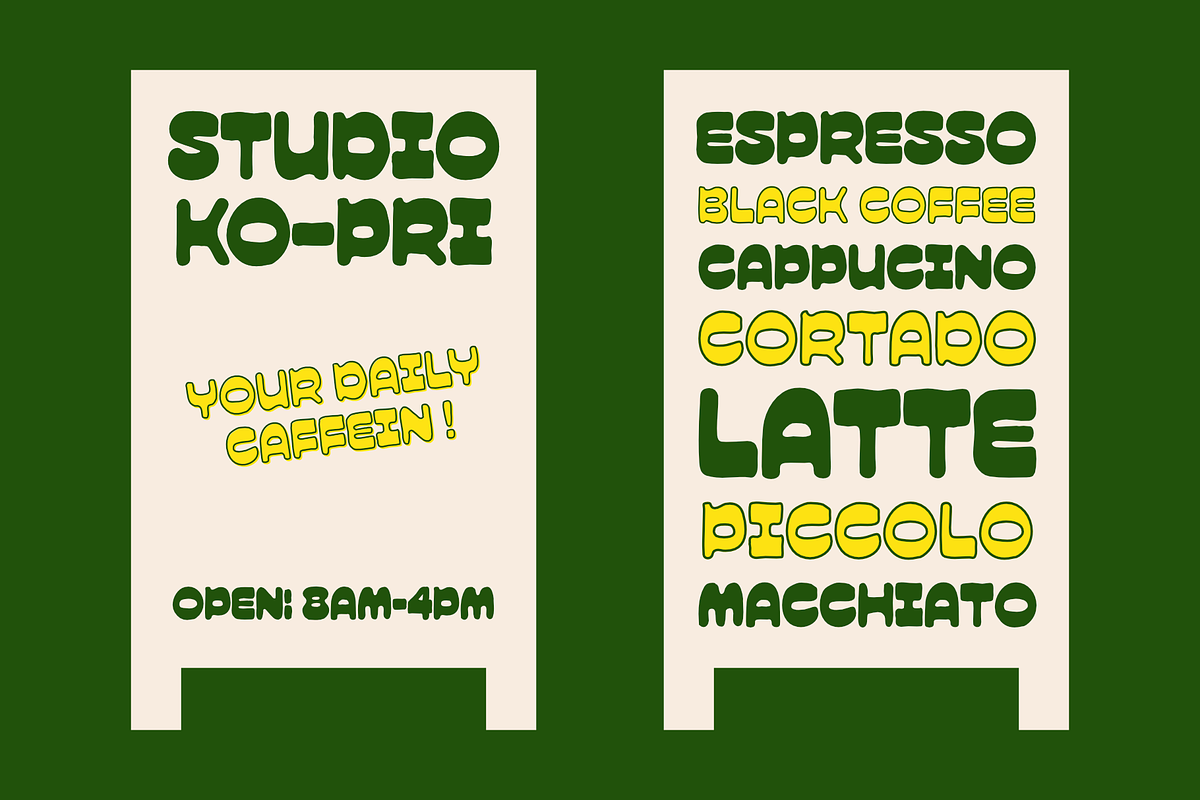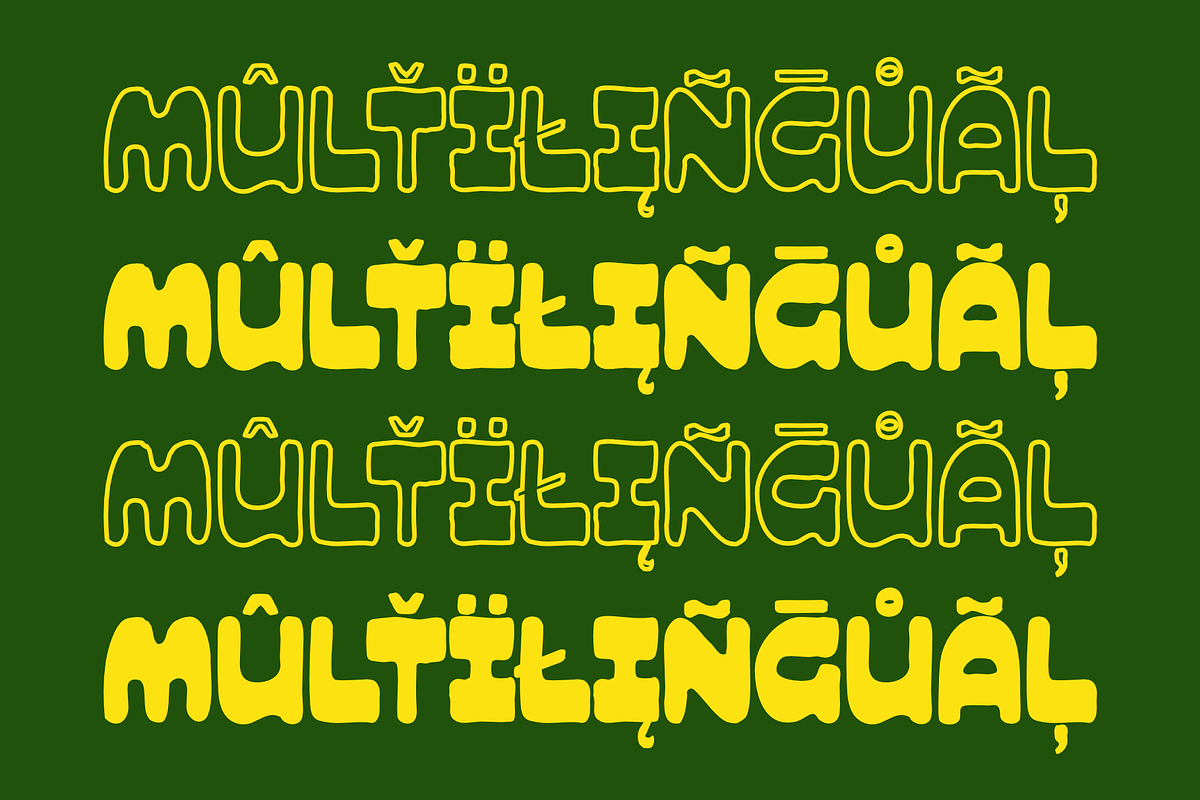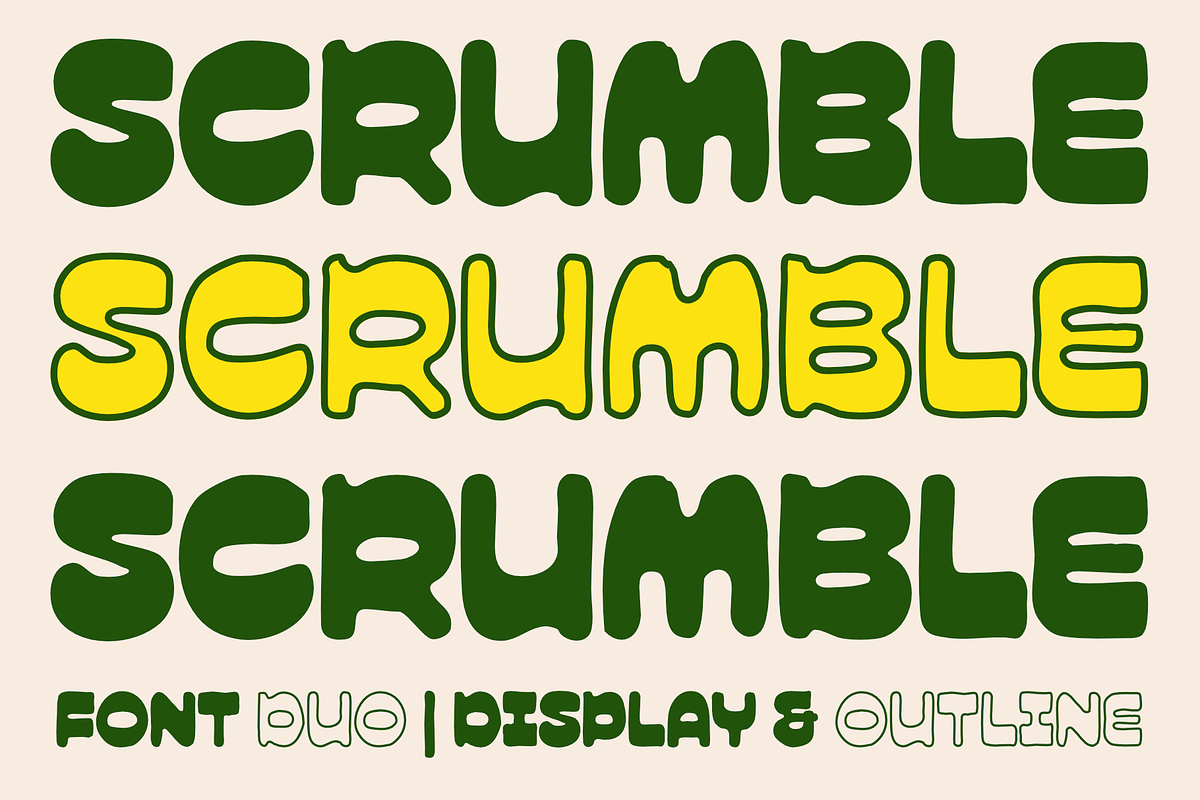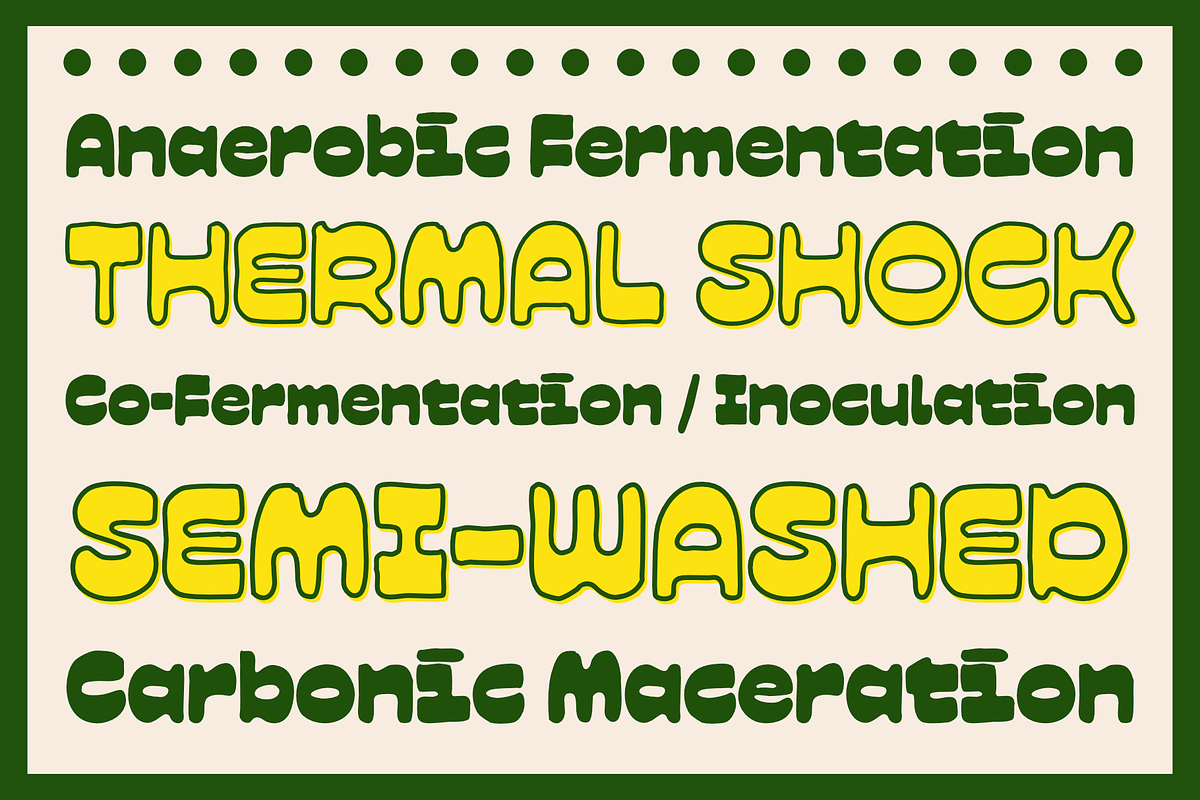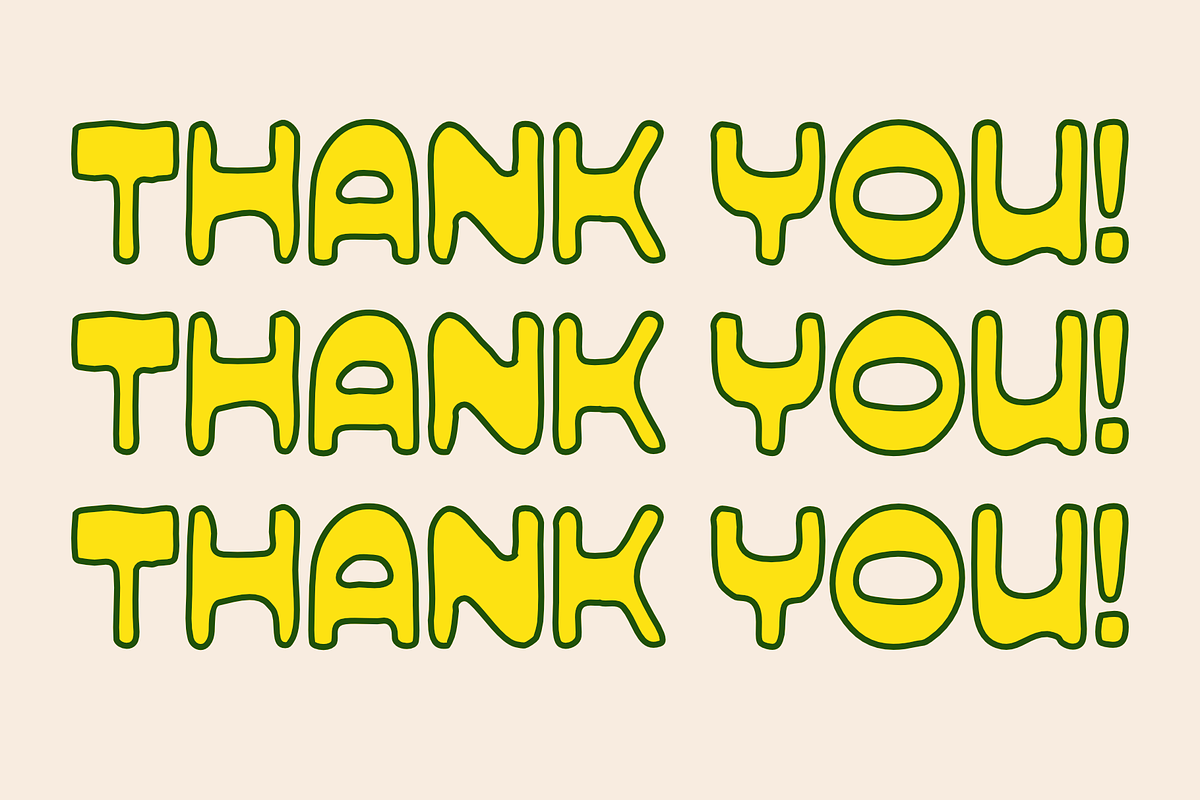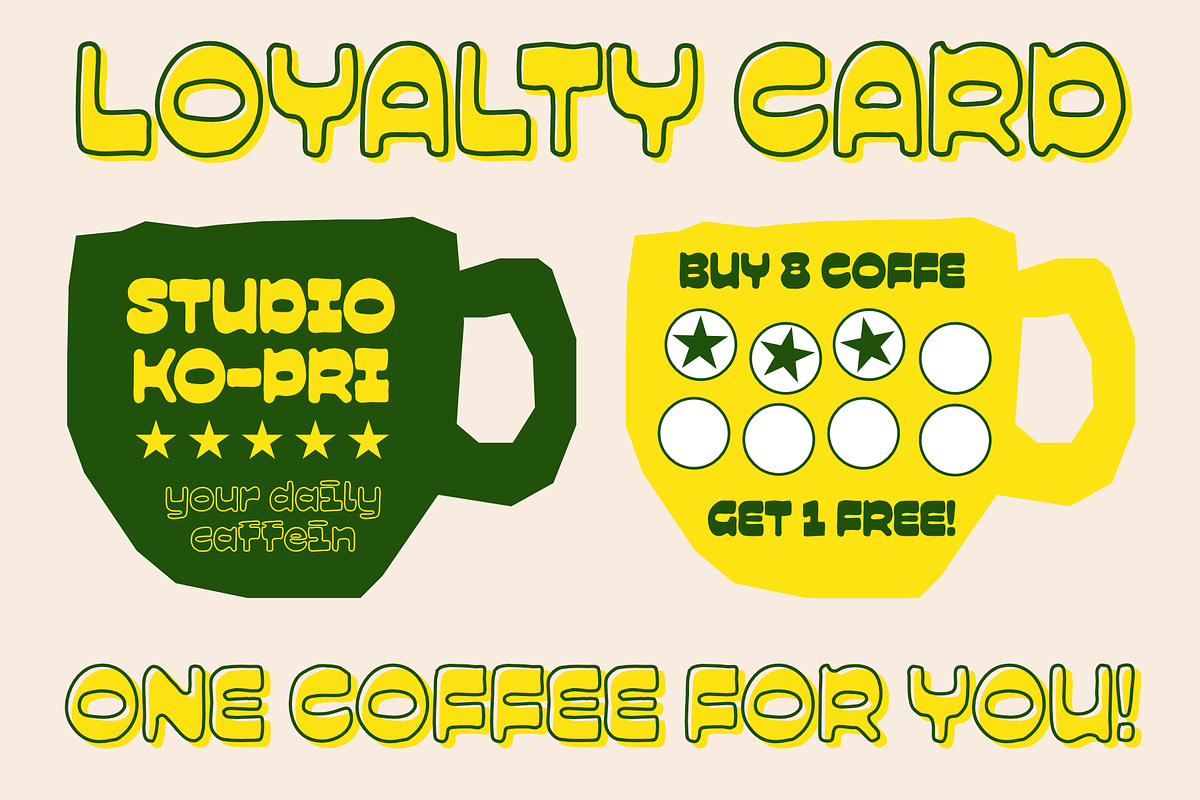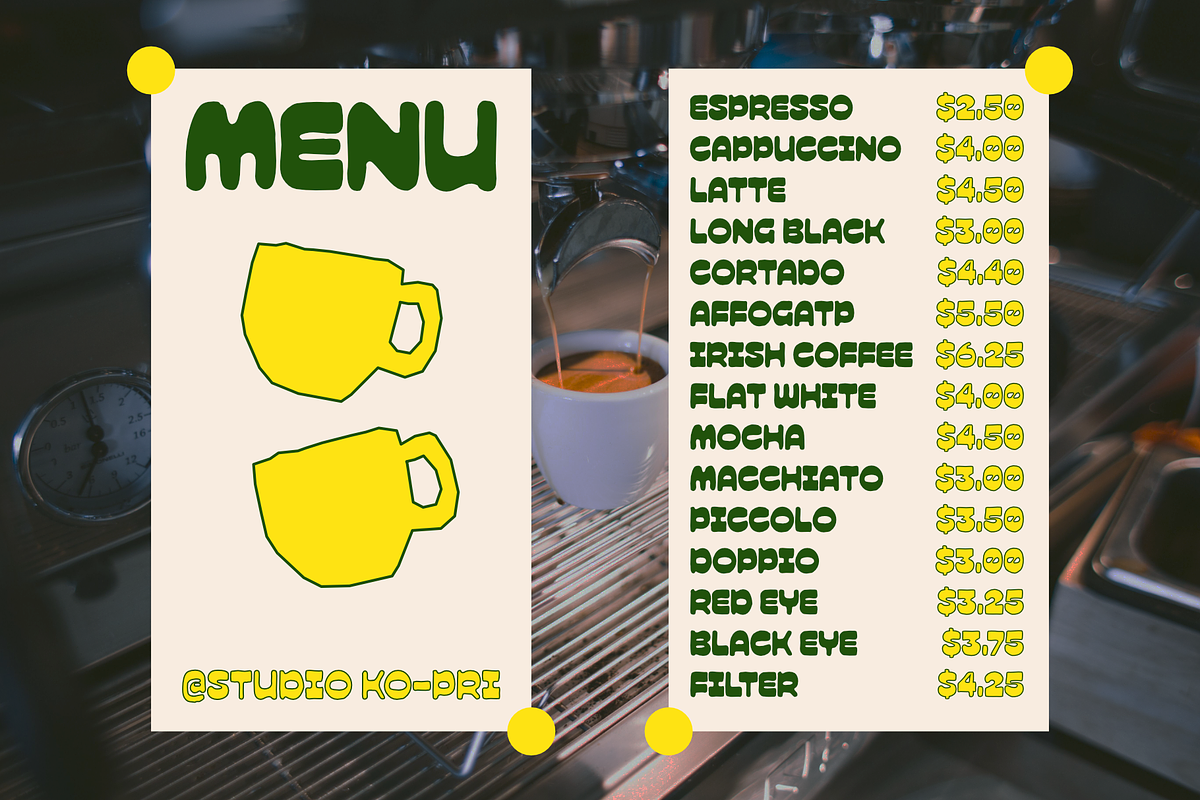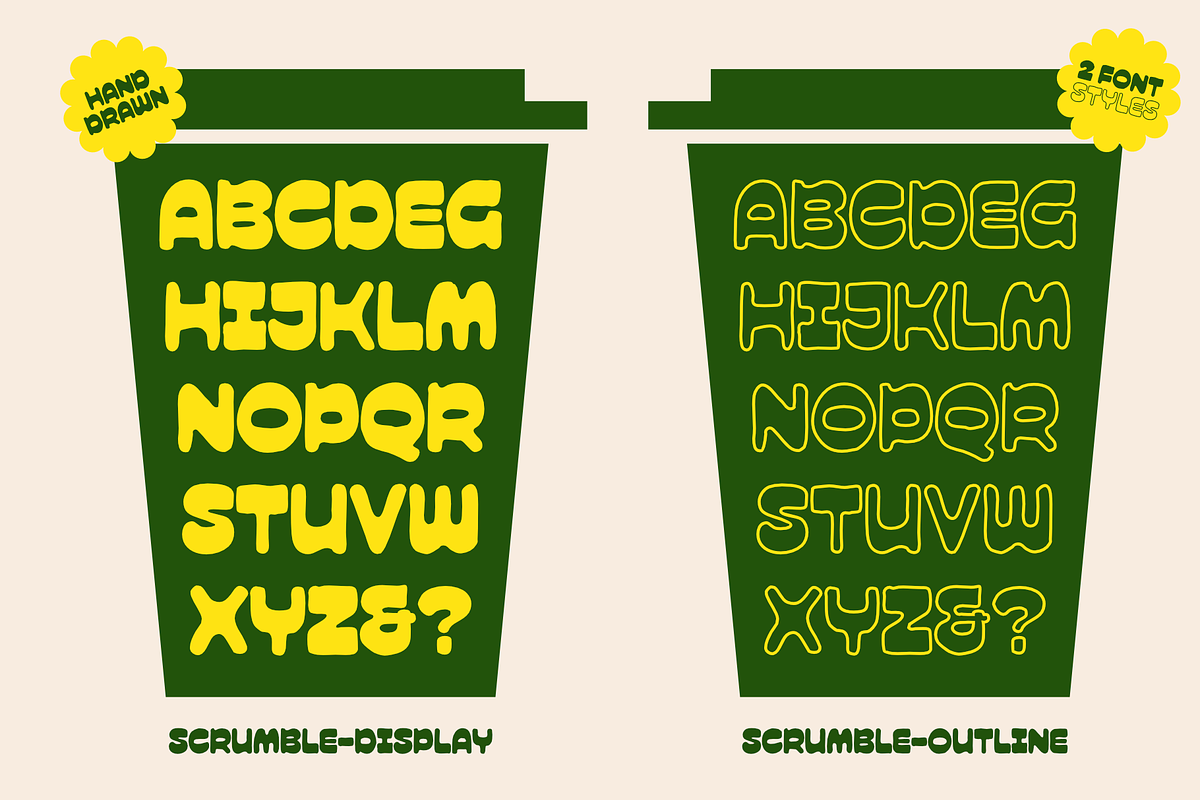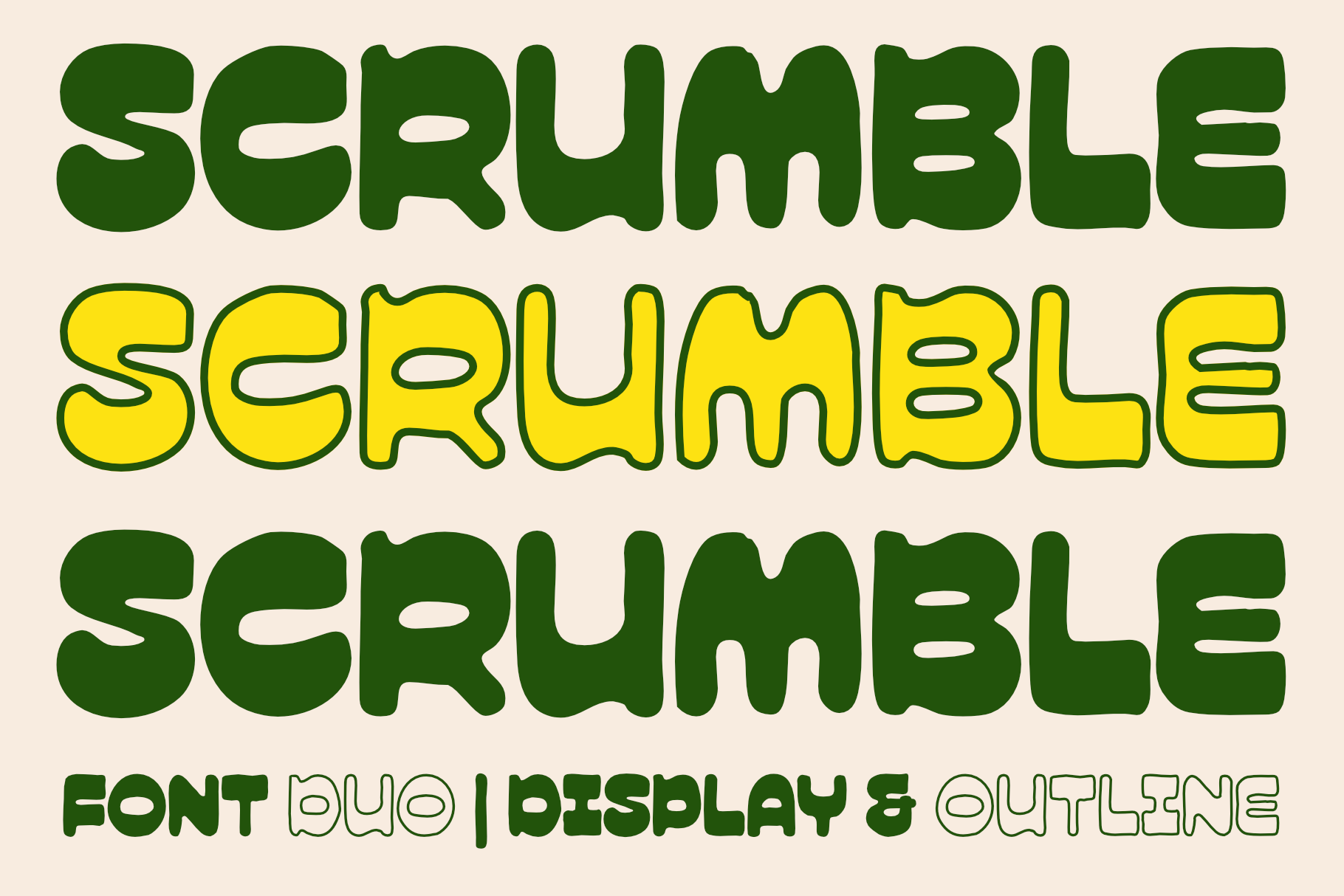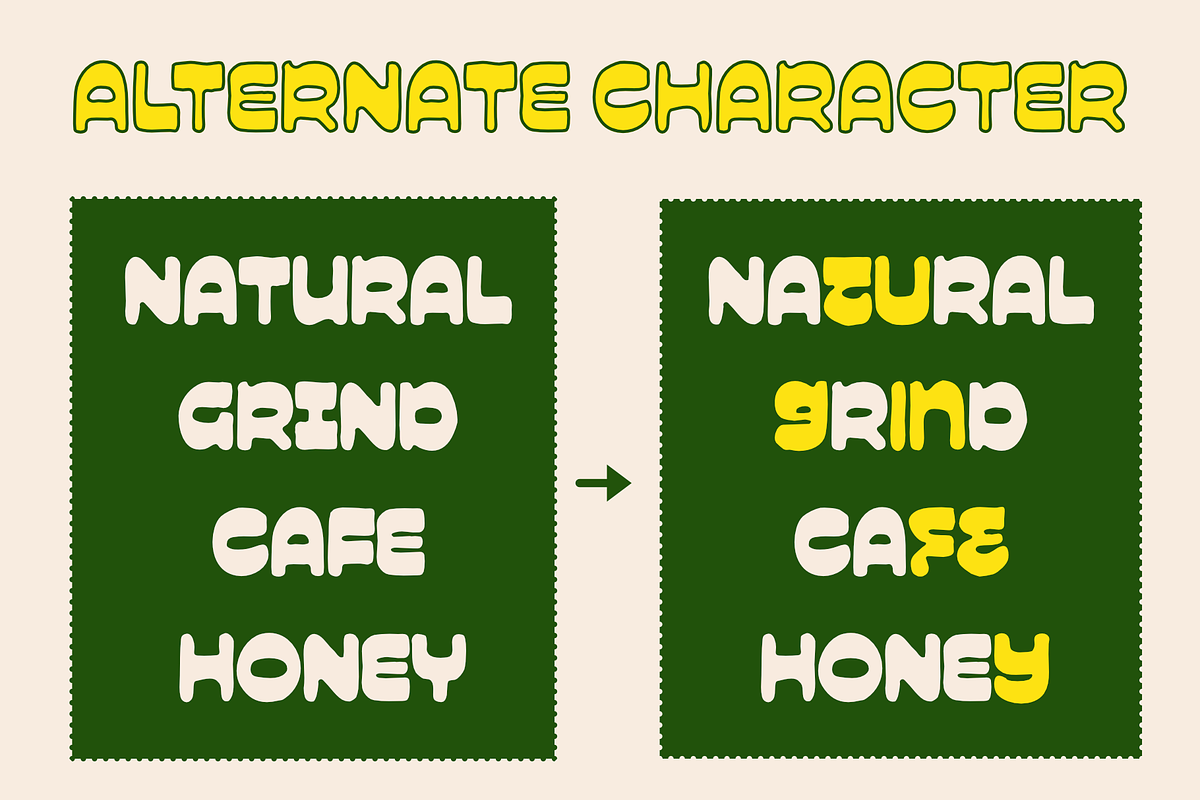
Scrumble | Playful Handwritten Font
Meet Scrumble, a bold hand-drawn display font inspired by cozy coffee shops, vintage packaging, and playful retro signage. Designed with soft rounded corners and organic imperfect curves, Scrumble brings warmth, friendliness, and personality to every design.
Whether you're creating branding for cafés, food packaging, children's products, posters, or social media graphics, Scrumble delivers a cheerful handmade feel that instantly grabs attention.
The family includes two styles—a solid Display version and a matching Outline version—making it easy to create eye-catching layered typography.
Hand-drawn organic letterforms
Bold, chunky display style
Includes Display & Outline fonts
Uppercase letters
Stylistic alternates for a more natural handwritten look
Perfect for layering and colorful typography
Works great for both print and digital projects
Coffee shop branding
Café menus
Food packaging
Restaurant logos
Children's products
Book covers
Stickers
Posters
T-shirt designs
YouTube thumbnails
Greeting cards
Packaging design
Retro & playful branding
Uppercase letters
Numerals
Currency symbols
Multilingual characters
Scrumble comes with carefully crafted alternate characters that add a spontaneous, hand-lettered appearance. Mix the alternates to avoid repetitive letter shapes and create typography that feels more authentic and lively.
The outline version pairs perfectly with the solid version for colorful layered effects, making it ideal for logos, menus, posters, and packaging.